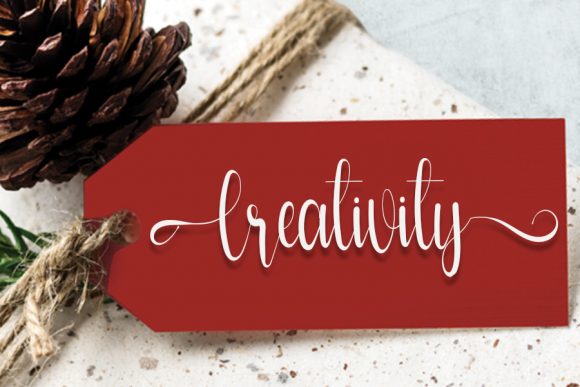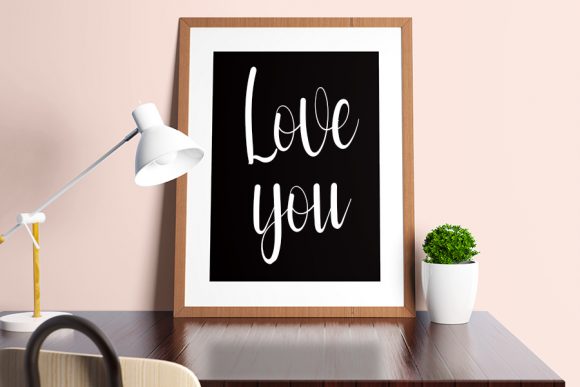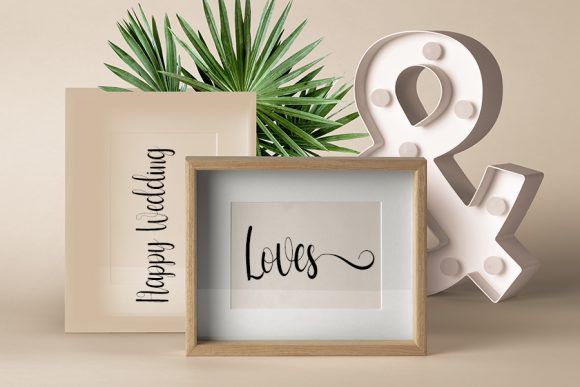
About Creative Font
Creative is a luxurious and flowing calligraphy font. It is the best choice for creating eye catching logos, branding and quotes. This font is PUA encoded which means you can access all of the glyphs and swashes with ease!